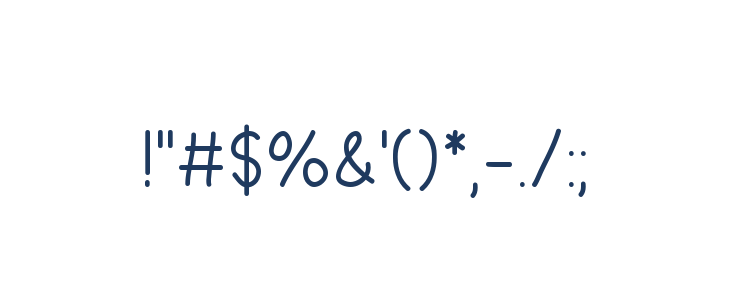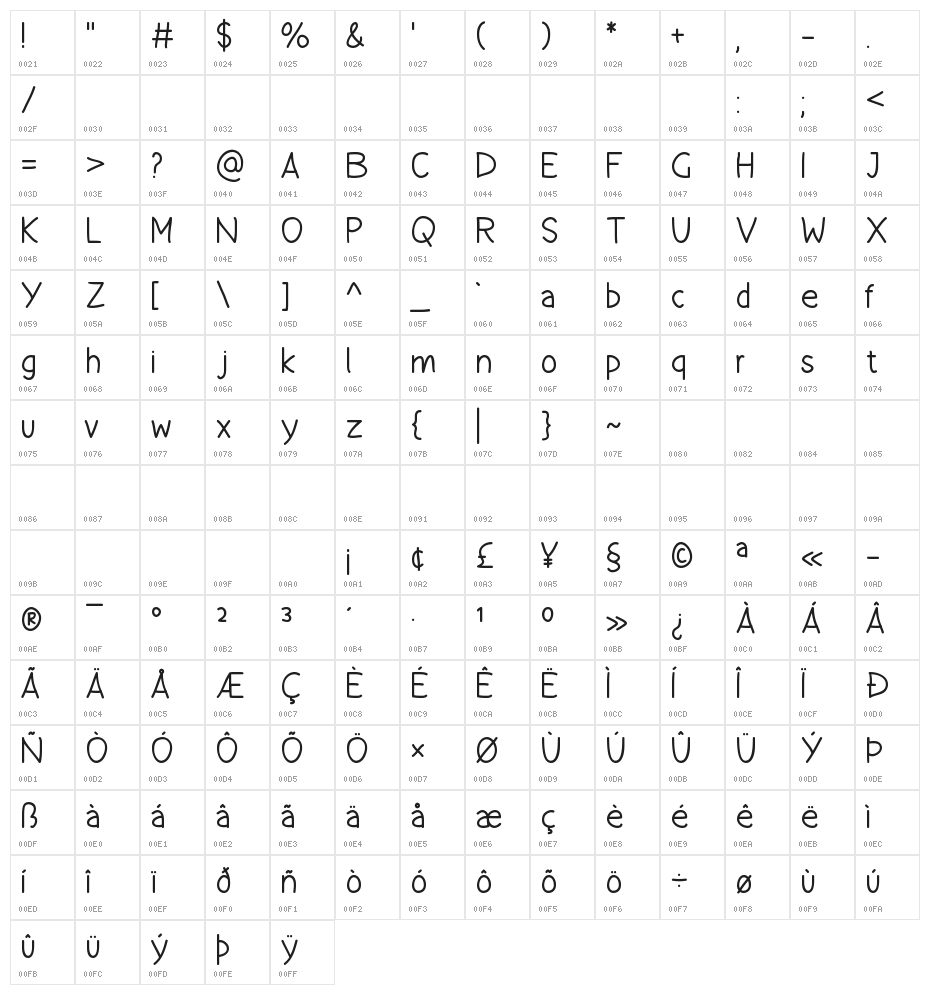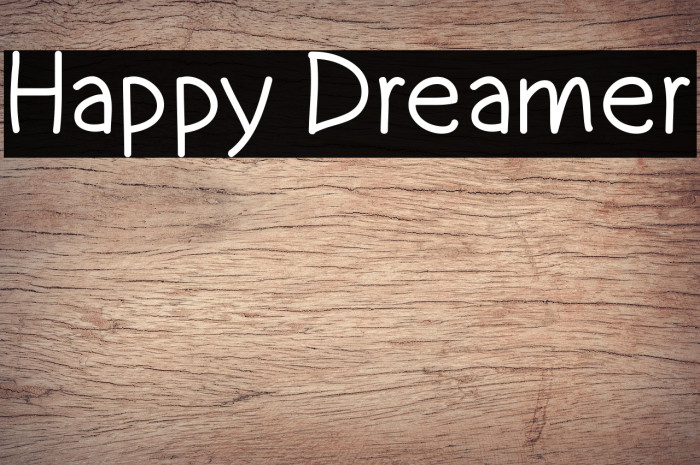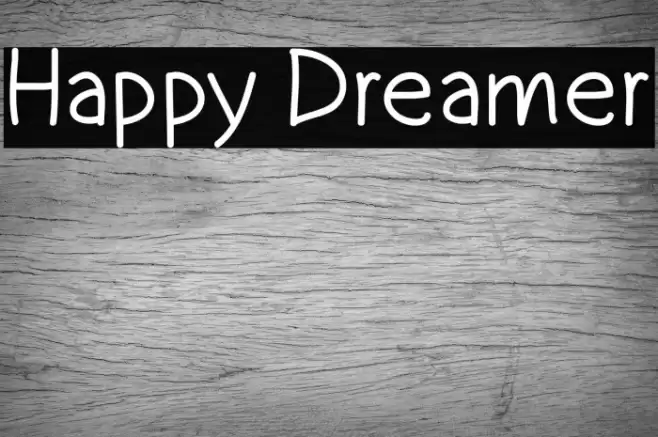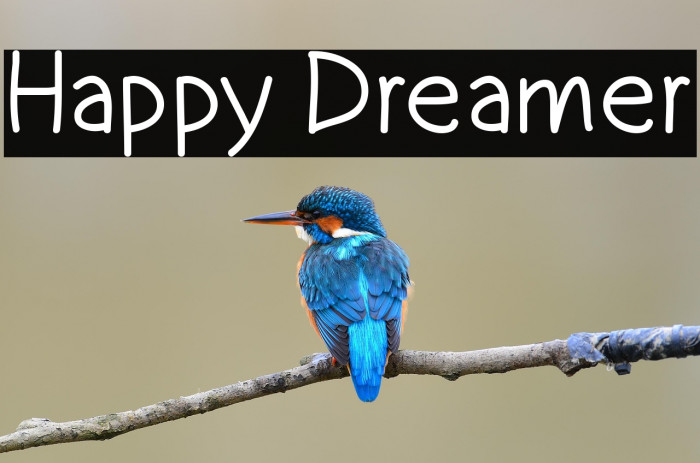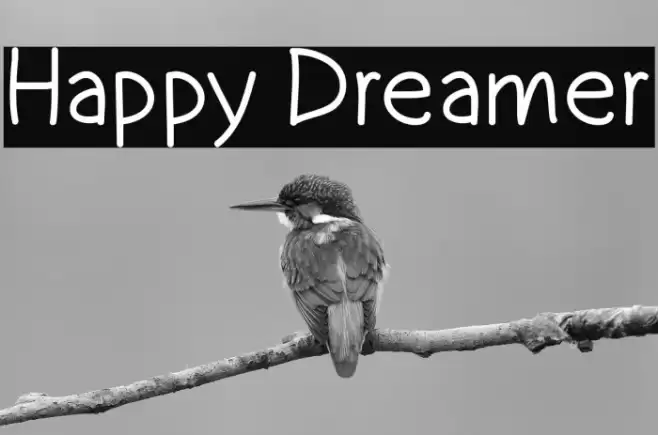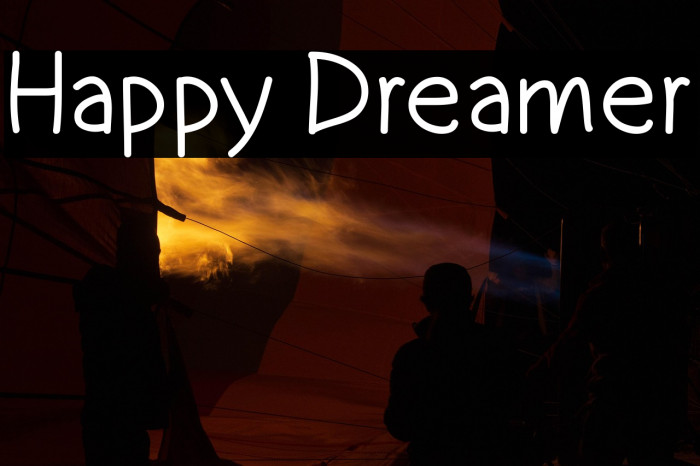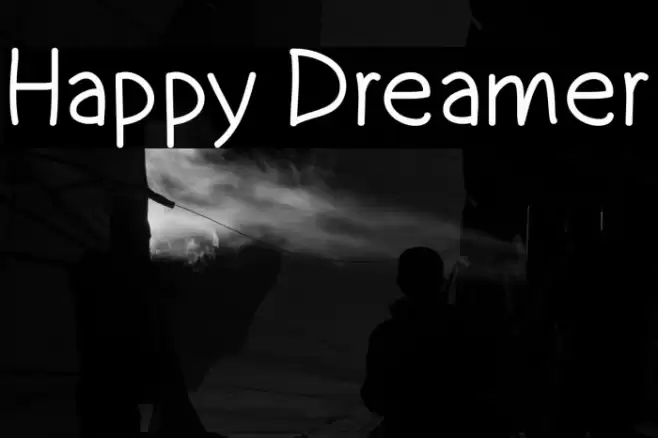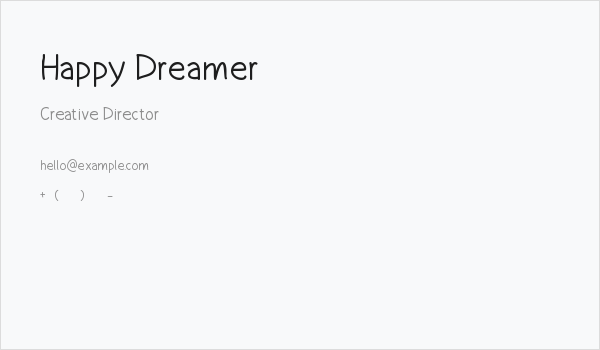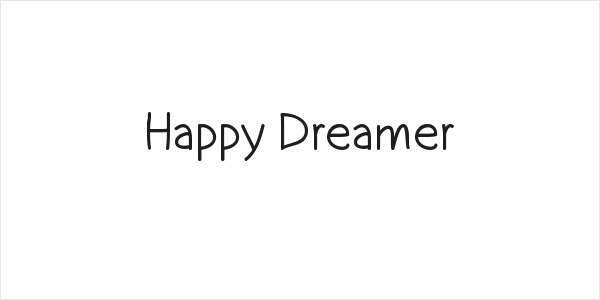
Happy Dreamer Font
Happy Dreamer Description
This font exudes a playful and whimsical charm, characterized by its rounded and slightly irregular letterforms. The strokes are consistent in weight, giving it a uniform appearance while maintaining a hand-drawn aesthetic. The uppercase and lowercase letters are well-balanced, with a friendly and approachable style. The special characters complement the overall design, adding to its versatility. This font is perfect for projects that require a touch of fun and creativity, such as children's books, playful branding, or casual invitations.
| Proposed Projects | Ideal for children's books, playful branding, casual invitations, and creative projects. |